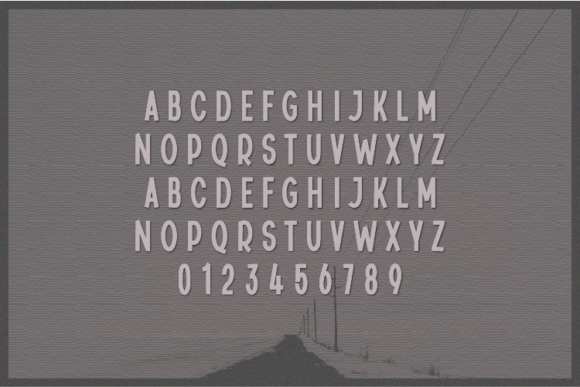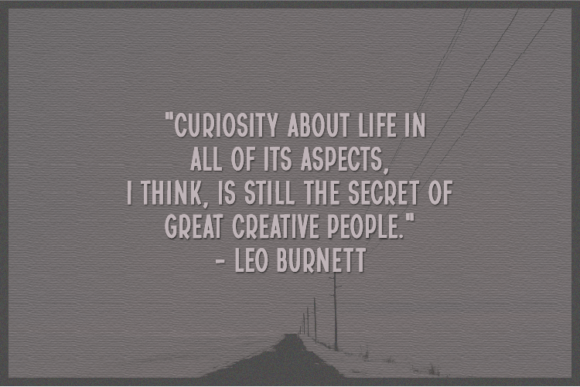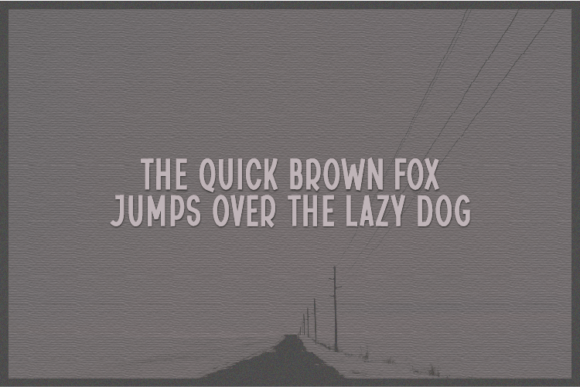
Introduction to Patchwork Font
Patchwork is a natural sans font made without changing a single node in each character’s indentation- this makes this font very interesting and unique.
Perfect for quotes, notes, tees, and any product design .
Key Features of Patchwork Font